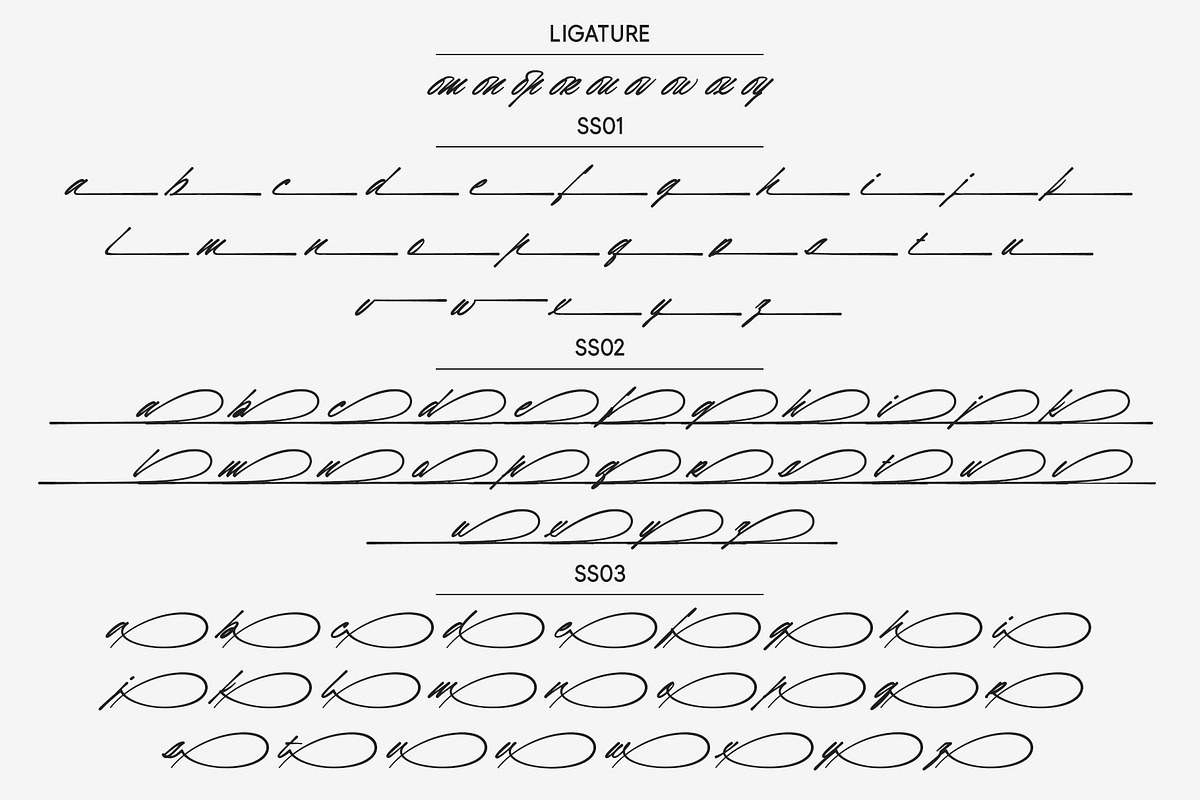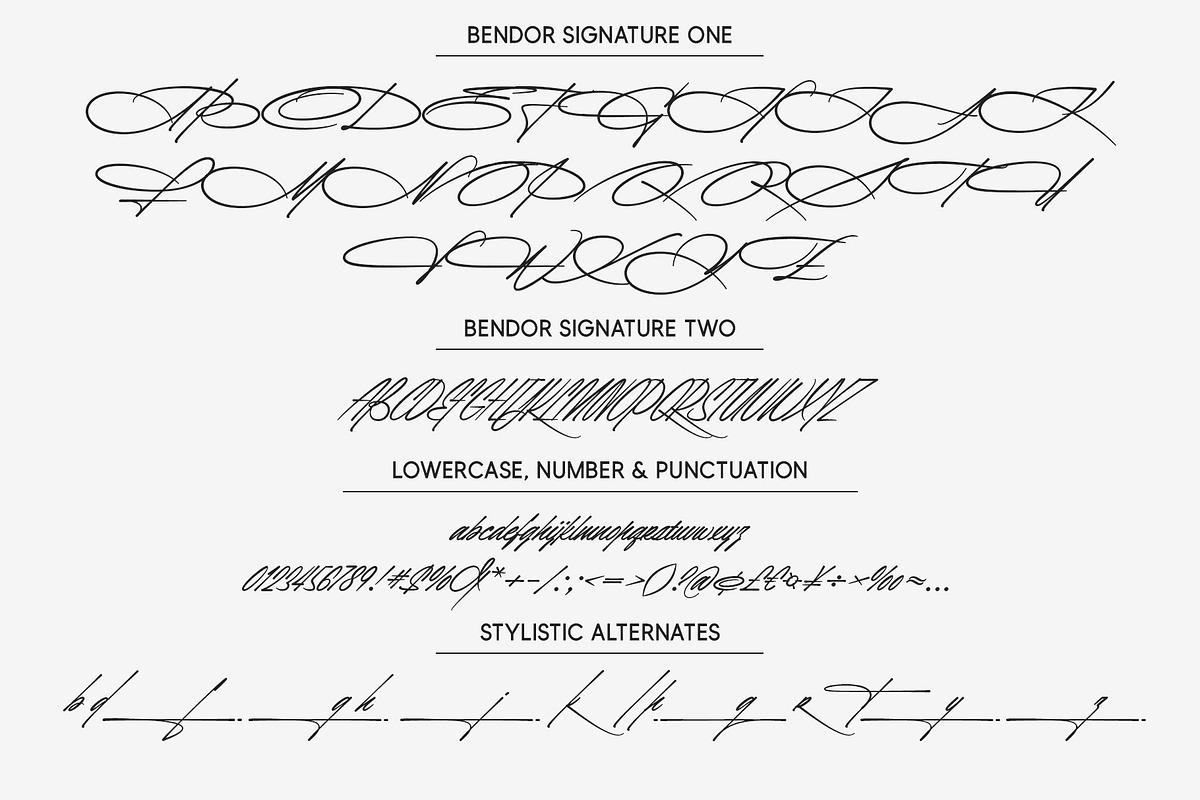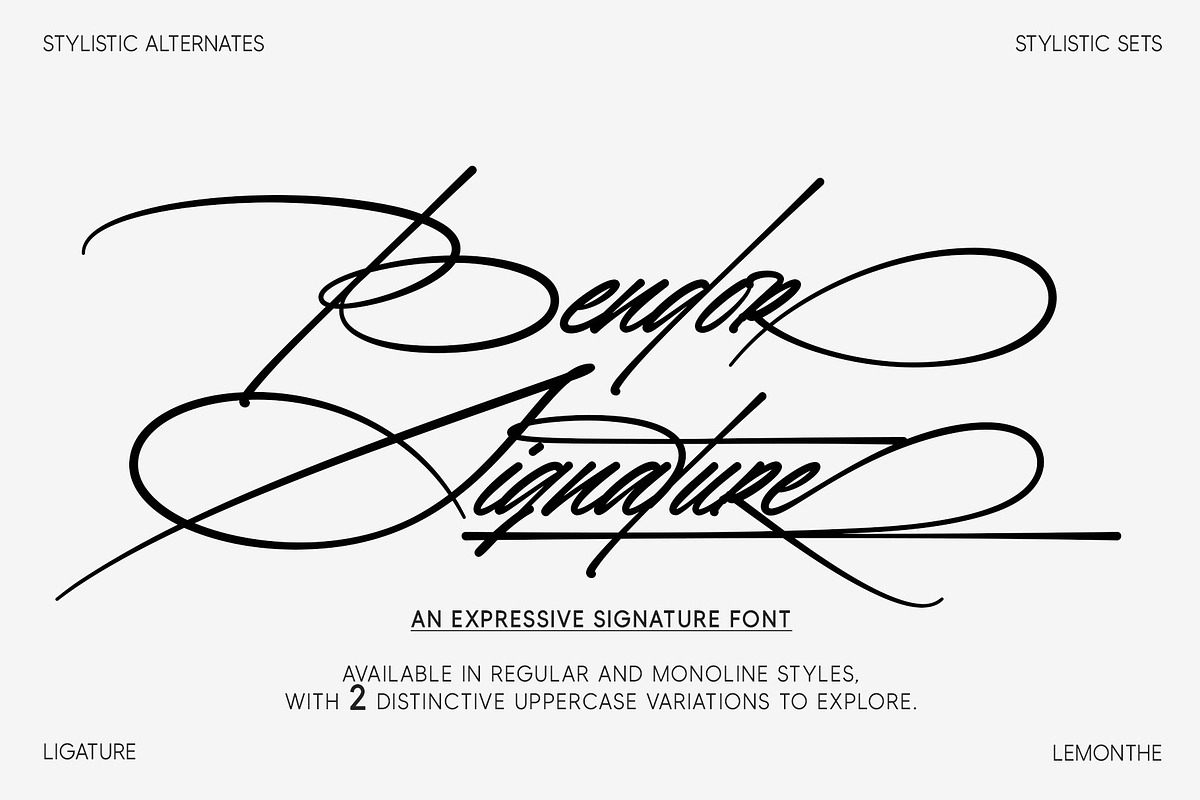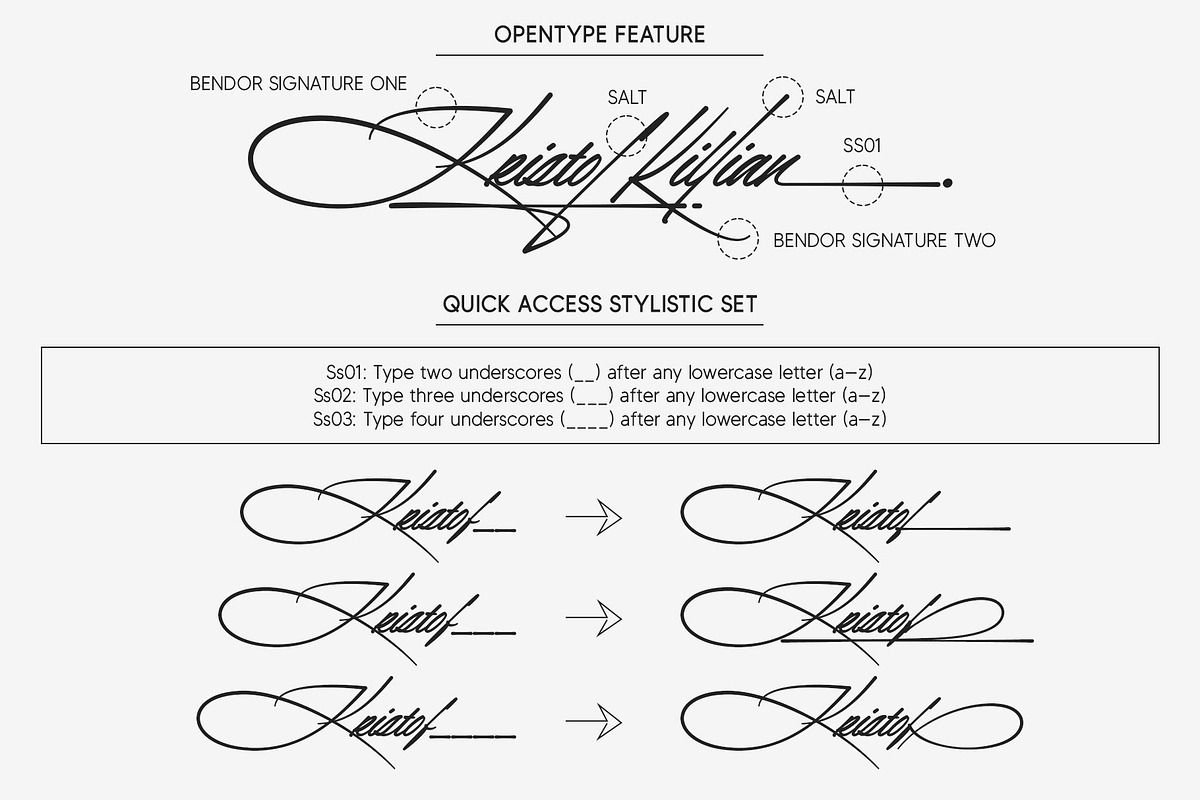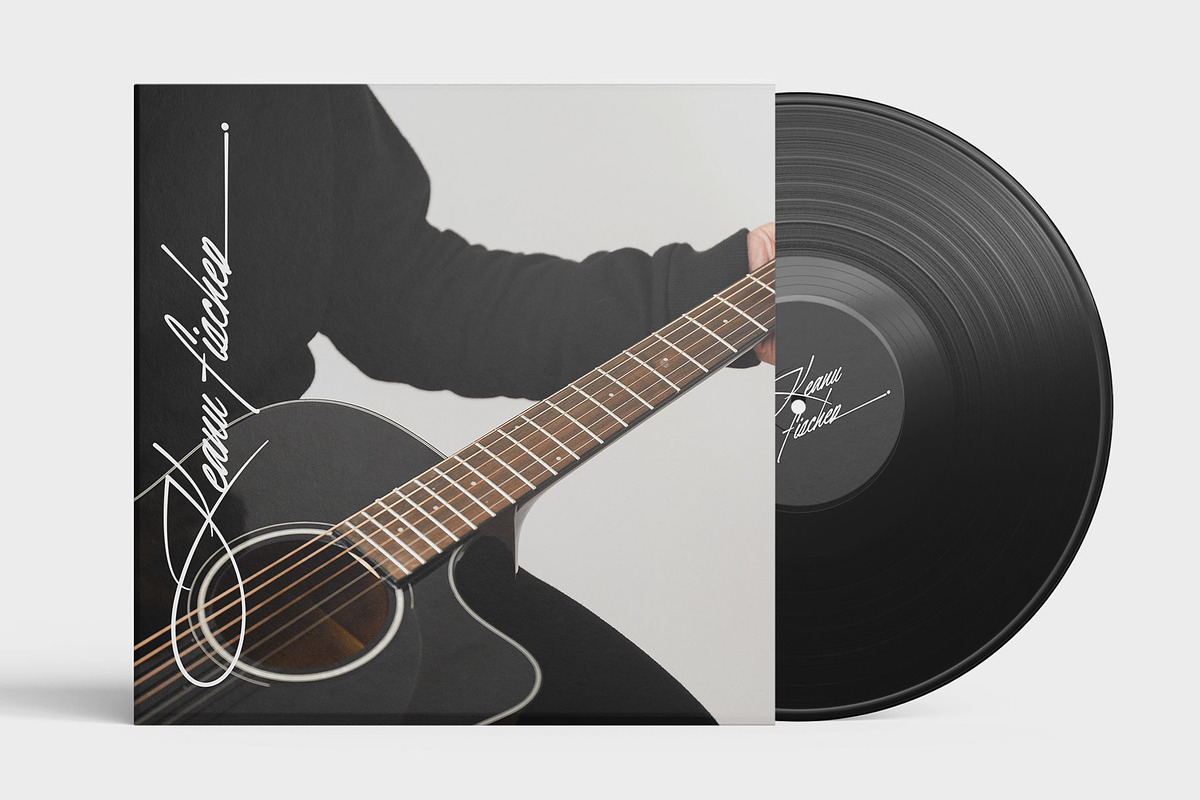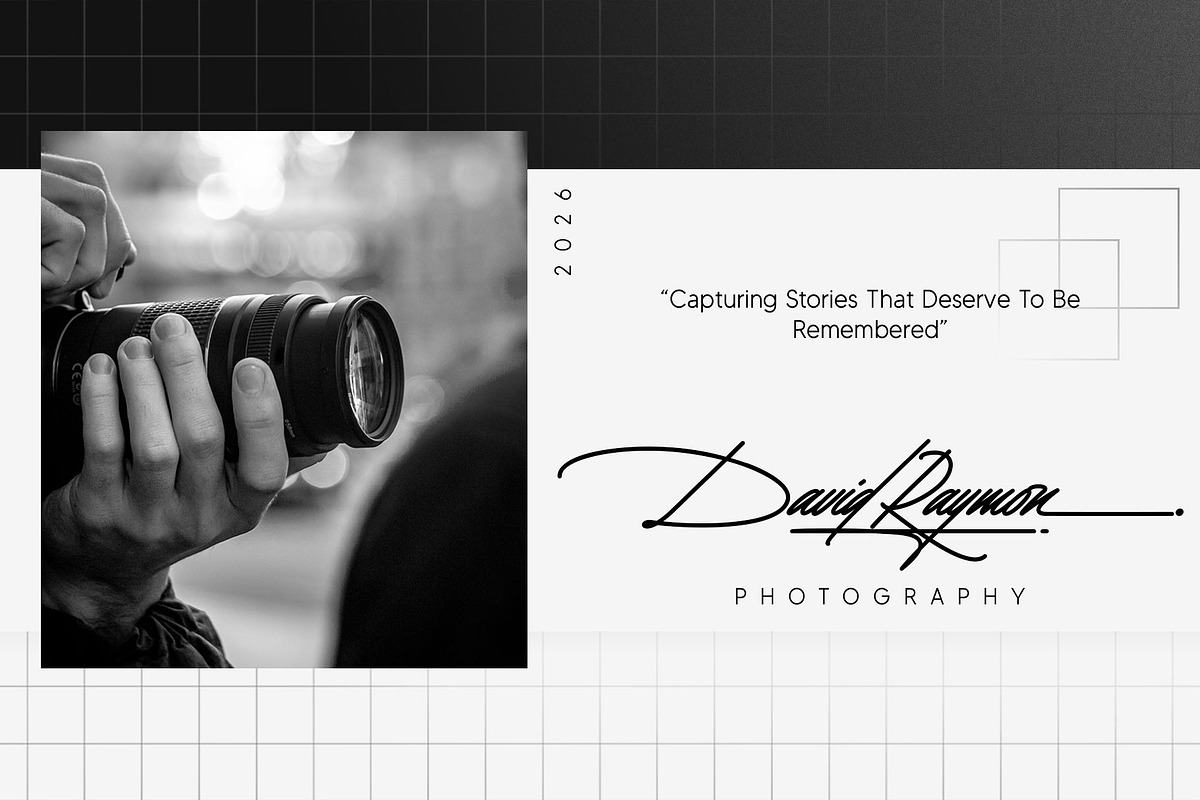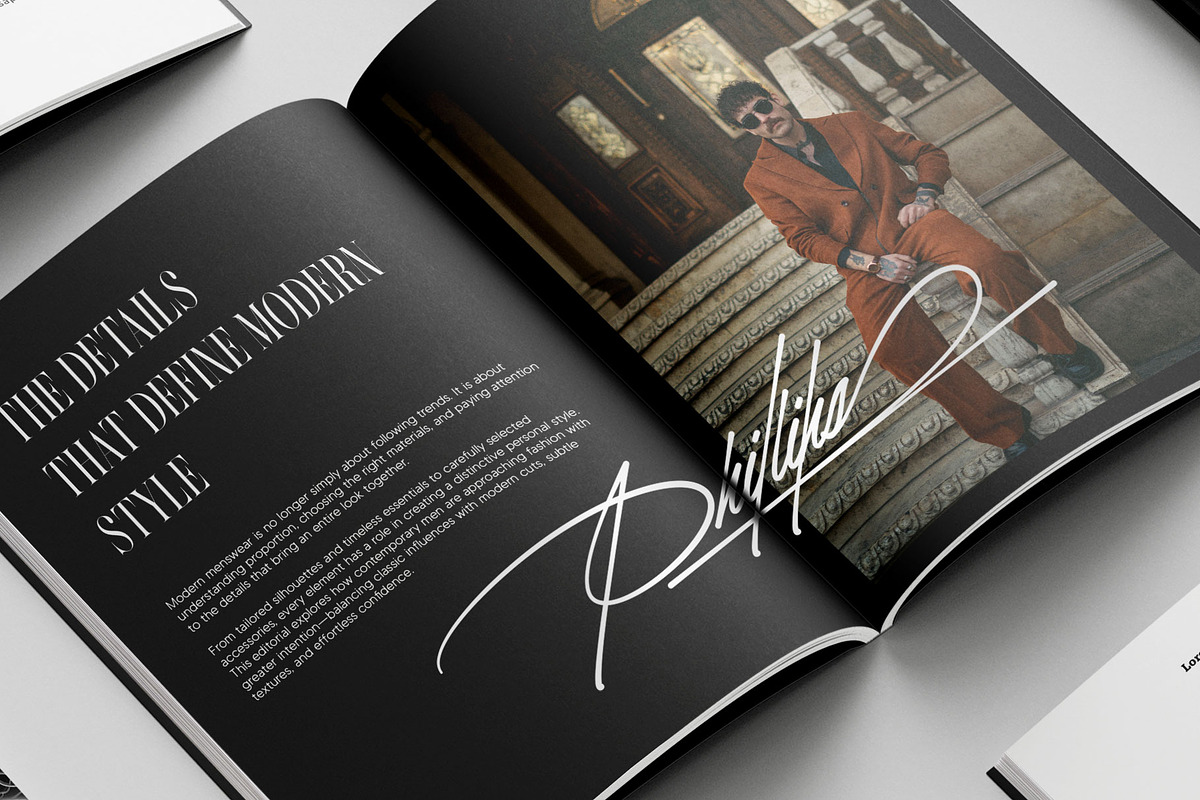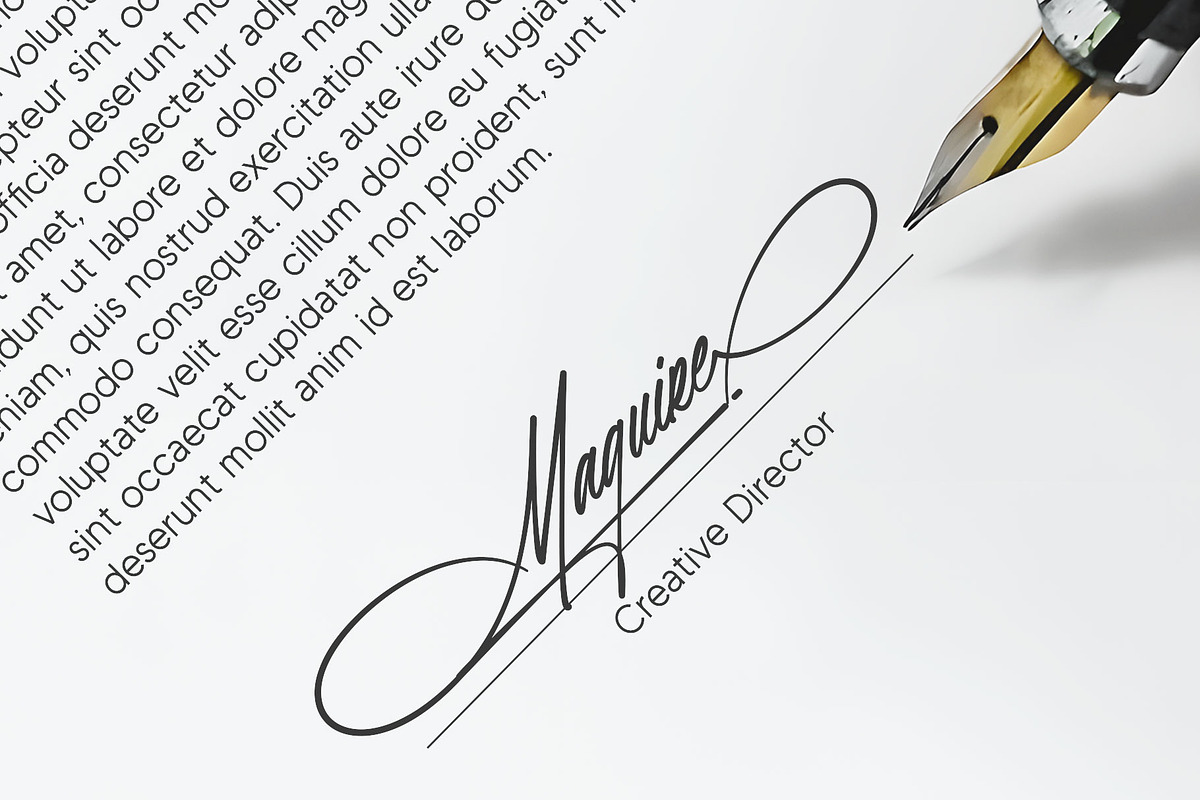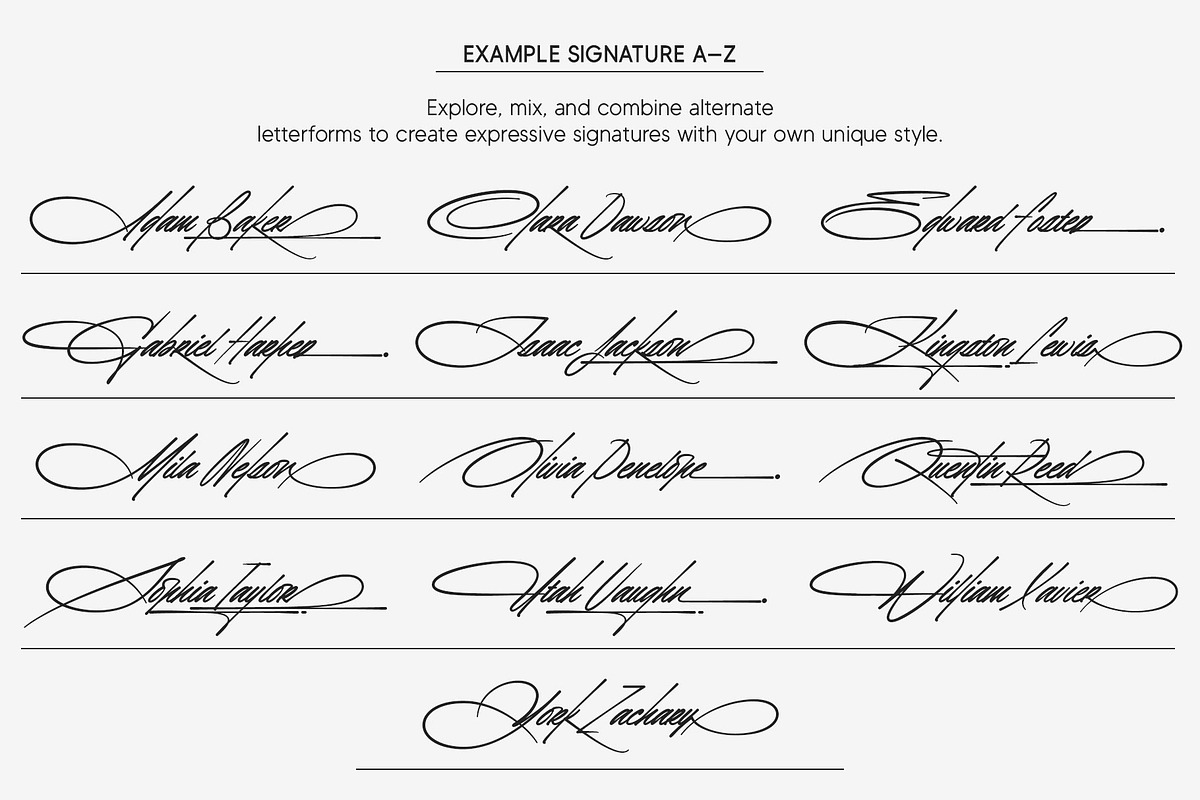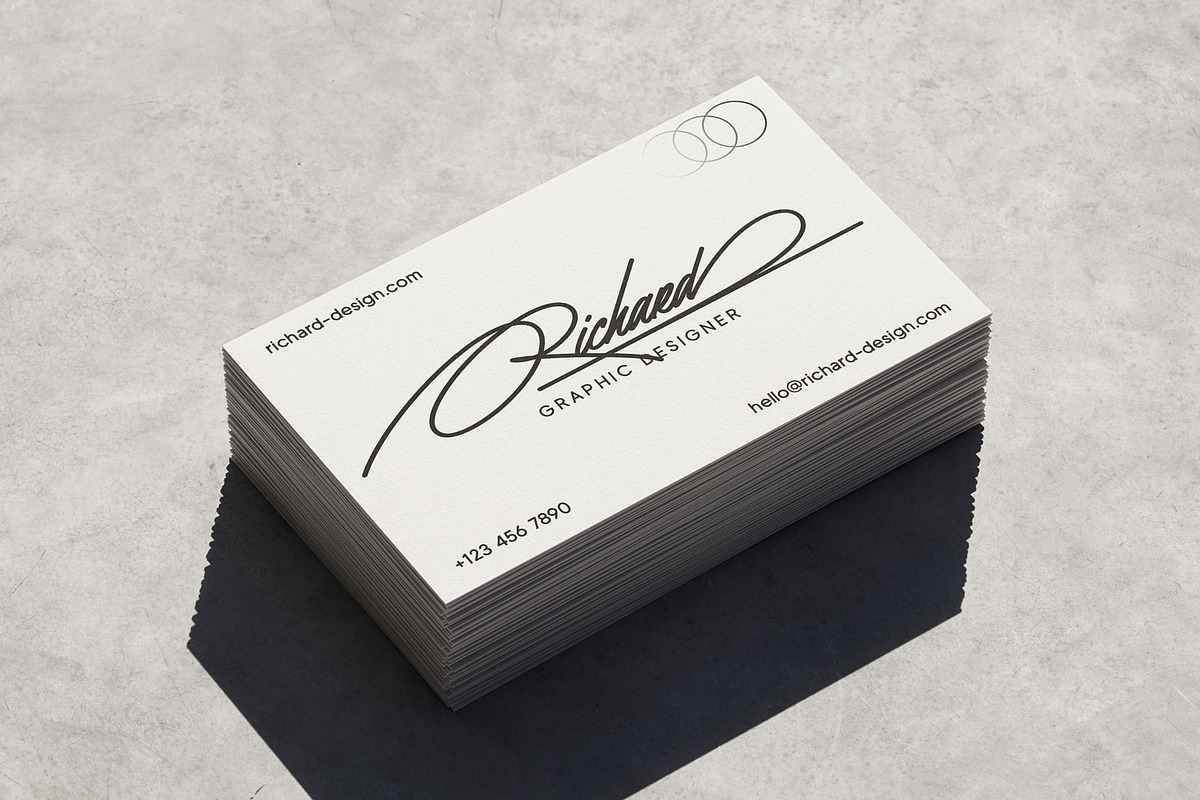
Bendor Signature
Bendor Signature is an expressive signature script font designed with flowing strokes, distinctive letterforms, and a natural handwritten feel. It comes in two styles: Regular and Monoline, with two different uppercase variations that give you more options to create unique signature looks and lettering combinations.
With built-in OpenType features, including Stylistic Alternates and Stylistic Sets, Bendor Signature lets you explore different letterforms and customize your text with ease. Its versatile signature style works well for logos and branding, fashion and beauty projects, business card, poster, photography, social media, packaging, invitations, personal branding, and other creative designs where an expressive handwritten touch is needed.
Bendor Signature One
Bendor Signature One Mono
Bendor Signature Two
Bendor Signature Two Mono
Stylistic Set (SS01, SS02, SS03)
Ligature
Numerals and Punctuation
Quick Access to Ending Alternates
SS01: Add 2x underscores at the end of lowercase letters a-z
SS02: Add 3x underscores at the end of lowercase letters a-z
SS03: Add 4x underscores at the end of lowercase letters a-z